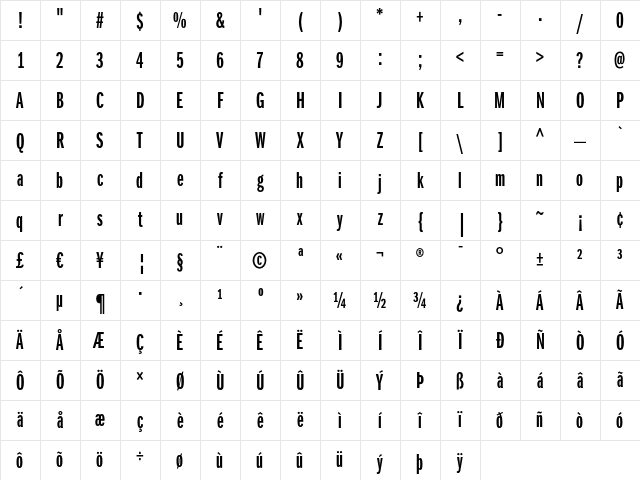
ITC Franklin Gothic LT Demi Extra Compressed
Style: Demi Extra Compressed
ITC Franklin Gothic LT Family
Design Context for ITC Franklin Gothic LT
ITC Franklin Gothic LT takes a clean, functional approach - its unadorned letterforms prioritise legibility and work reliably across screen and print environments. Its slender proportions lend an understated elegance to any composition.
Font Pairing: Pair ITC Franklin Gothic LT with a medium or bold serif for headlines - the weight contrast creates an elegant, high-end feel.
Pro Tip: Use ITC Franklin Gothic LT with generous tracking and line-height for the most luxurious effect - light sans-serifs reward spacious, considered layouts.